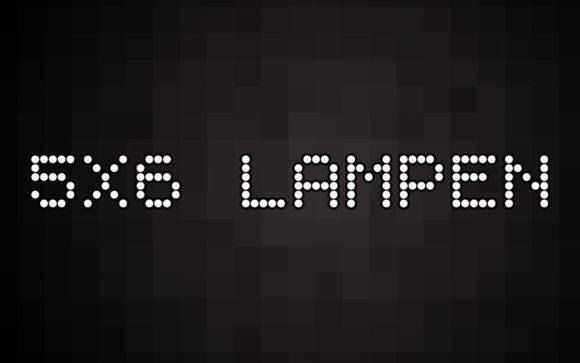
5x6 Lampen Font for Crafting, Logos and Print Projects
This font features clean, structured lines with a modular design that adds a bold, industrial-modern character to creative projects. It’s built for visibility and style across logos, labels, posters, and handmade goods. With its unique aesthetic, this typeface provides a striking contrast to softer elements, ensuring that your message stands out. Whether you're crafting a marketing campaign or designing artistic merchandise, the abberancy font for creative projects serves as an impactful choice that elevates any visual narrative. Its versatility makes it suitable for both digital and print applications, enhancing your overall brand identity.
As a font entity, 5x6 Lampen supports digital and physical production workflows including print, vinyl crafting, and branding design. Its uniform grid-like form enhances both clarity and creative impact.
From modern logos to packaging design, this typeface adapts well to projects requiring a blend of utility and design-forward structure.
- Logos and brand kits
- Posters, signs, and packaging
- Printable cards and product tags
- Cut vinyl labels and wall art
- Modern-themed printables and merchandise
- Bold structure with modern appeal
- Ideal for logos, craft cuts, and prints
- Delivers clean, readable typography for any scale
Q: What kind of font is 5x6 Lampen?
A: It’s a structured display font with grid-like styling, suited for modern designs across print, branding, and craft applications.